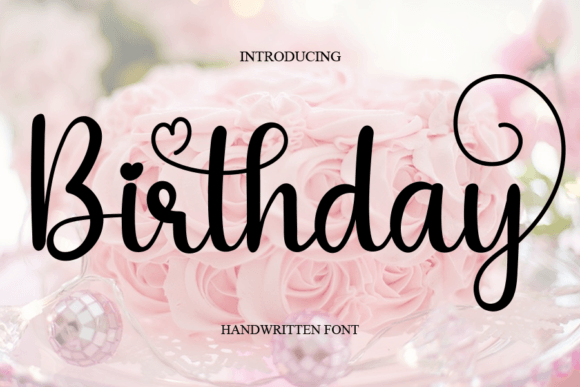
Introducing the Birthday Font, the perfect font for a signature-style look! This script font is not only sweet and adorable, but it also has a unique charm that is sure to captivate your audience. Created by cans studio, this font is the perfect addition to any project that needs a natural and neat touch.
If you're looking for a font that's both versatile and eye-catching, Birthday Font is the one for you! With its wide range of applications, you can use it for everything from greeting cards to headlines. It's a font that's sure to make a statement and leave a lasting impression on your audience.
This font is perfect for those who want to add a personal touch to their designs. It's great for creating invitations, thank-you cards, and even business cards. The Birthday Font is perfect for those who want to create a unique and memorable signature-style look for their projects.
With its smooth and flowing script, this font is perfect for creating a romantic and whimsical vibe. It's perfect for wedding invitations, love letters, and anything else that requires a touch of romance.
Overall, the Birthday Font is a must-have for any designer or anyone looking to add a unique touch to their projects. So why wait? Download this font today and take your designs to the next level!